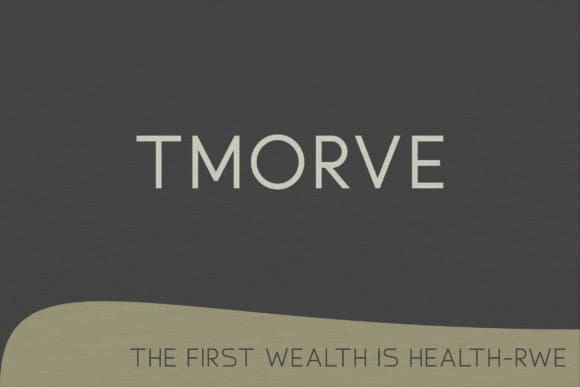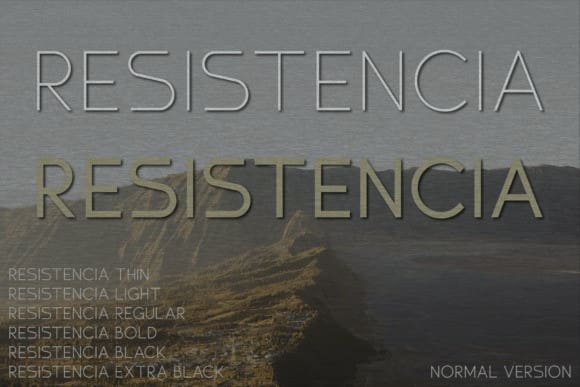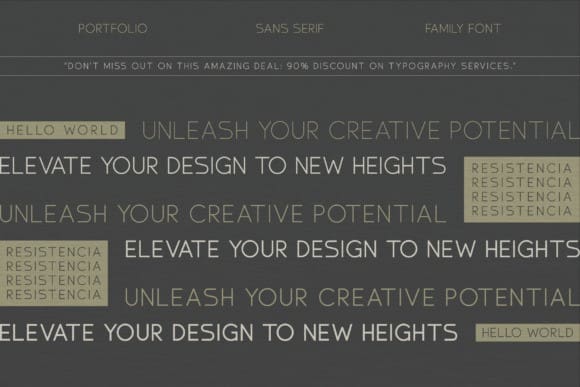
Resistencia Font Family
Resistencia Font, the epitome of elegant minimalism. This exclusive font family boasts of five unique weights, skillfully bridging the gap between contemporary style and opulent luxury. Every detail in this sans serif selection is meticulously refined, ensuring it elevates your projects, be it a modern magazine, distinctive logo, or dynamic film poster. Experience a harmonious blend of sophistication and simplicity with the Resistencia Font, lending your designs an enduring allure. Embrace the transformative capacity of this font family today.